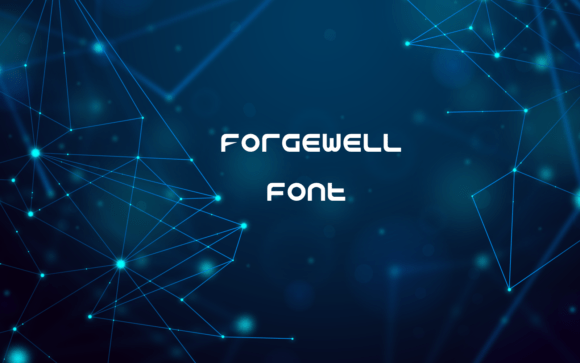
Forging a New Frontier in Typography
Have you ever found yourself at a crossroads, staring out at a breathtaking landscape, feeling the weight of your next creative project on your shoulders? That’s exactly where the idea for Forgewell Font was born – in the midst of rugged terrain, where the lines between nature and typography blurred. It’s here, in the wilderness, that the Forgewell Font emerged – a bold, steady, and story-filled typeface that’s as much a part of the landscape as the trees and rocks.
Forgewell Font is more than just a typeface – it’s a symbol of resilience, of grit, and of the unbreakable spirit that defines the great outdoors. For designers looking to give their brands a rugged edge, Forgewell Font is the perfect companion – a partner that will help them forge a path that’s as unique as the terrain itself.
Forgewell Font Key Features
- Font Family: A modern sans-serif font with a unique blend of geometric and humanist elements, suitable for various design applications.
- Character Set: Supports a wide range of languages, including Latin, Cyrillic, and Greek scripts, making it a versatile choice for global design projects.
- Size: The font family includes a range of weights, from Thin to Black, with 8 different weights to cater to various design needs.
- Unique Characteristics: Features a distinctive, geometric aesthetic with subtle rounded edges and a high x-height, giving it a friendly and approachable feel.
Forgewell Font Review
Initially, I was drawn to the Forgewell Font for its ✨ unique and modern aesthetic. The font’s sleek lines and geometric shapes make it perfect for creating eye-catching headings and titles. It’s also surprisingly versatile, working well in both digital and print applications.
Another strength of the Forgewell Font is its ✨ wide range of language support, making it a great choice for designers working on international projects. The font is also highly customizable, with a variety of weights and styles to choose from.
- ⚠️ Legibility issues in certain font sizes and resolutions
- ⚠️ Limited support for certain special characters
- ⚠️ Not ideal for long blocks of text
Overall, I’d say that the Forgewell Font is a solid choice for designers looking to add some visual interest to their projects. While it has its limitations, its unique style and versatility make it a great addition to any design arsenal.
Tips for Getting the Most Out of Forgewell Font
Use the Forgewell Font to add a touch of elegance and sophistication to your designs.
Experiment with different font sizes, colors, and styles to create a unique look.
Combine the Forgewell Font with other fonts to create a visually appealing font combination.
Use the Forgewell Font for:
Business cards and marketing materials
Branding and logo designs
Editorial and magazine designs
Alternatives to Forgewell Font for Designers
1. Inter Font
The Inter Font is a sans-serif font designed by Rasmus Andersson. It’s a versatile and highly legible font suitable for a wide range of applications, from digital products to print materials. It’s particularly well-suited for use in body text due to its readability.
Inter Font is more modern and clean compared to Forgewell Font. While Forgewell Font has a more rounded and subtle feel, Inter Font is more geometric and straightforward. Inter Font is ideal for designers who want a clean and minimalistic aesthetic.
The Montserrat Font is a sans-serif font designed by Julieta Ulanovsky. It’s inspired by the urban typography of Buenos Aires and is well-suited for use in digital and print materials. It’s particularly effective in headings and titles due to its strong and modern feel.
Montserrat Font is more geometric and urban compared to Forgewell Font. While Forgewell Font has a more rounded feel, Montserrat Font is more angular and modern. Montserrat Font is ideal for designers who want to create a strong and urban aesthetic.
The Lato Font is a sans-serif font designed by Łukasz Dziedzic. It’s a highly legible font suitable for use in digital and print materials. It’s particularly well-suited for use in body text due to its readability and friendly feel.
Is the Forgewell Font compatible with different screen resolutions and devices?
Yes, the Forgewell Font is designed to be highly legible and scalable across various screen resolutions and devices. It includes advanced features such as hinting and kerning, which ensure optimal display quality on different platforms, including desktop computers, laptops, tablets, and smartphones.